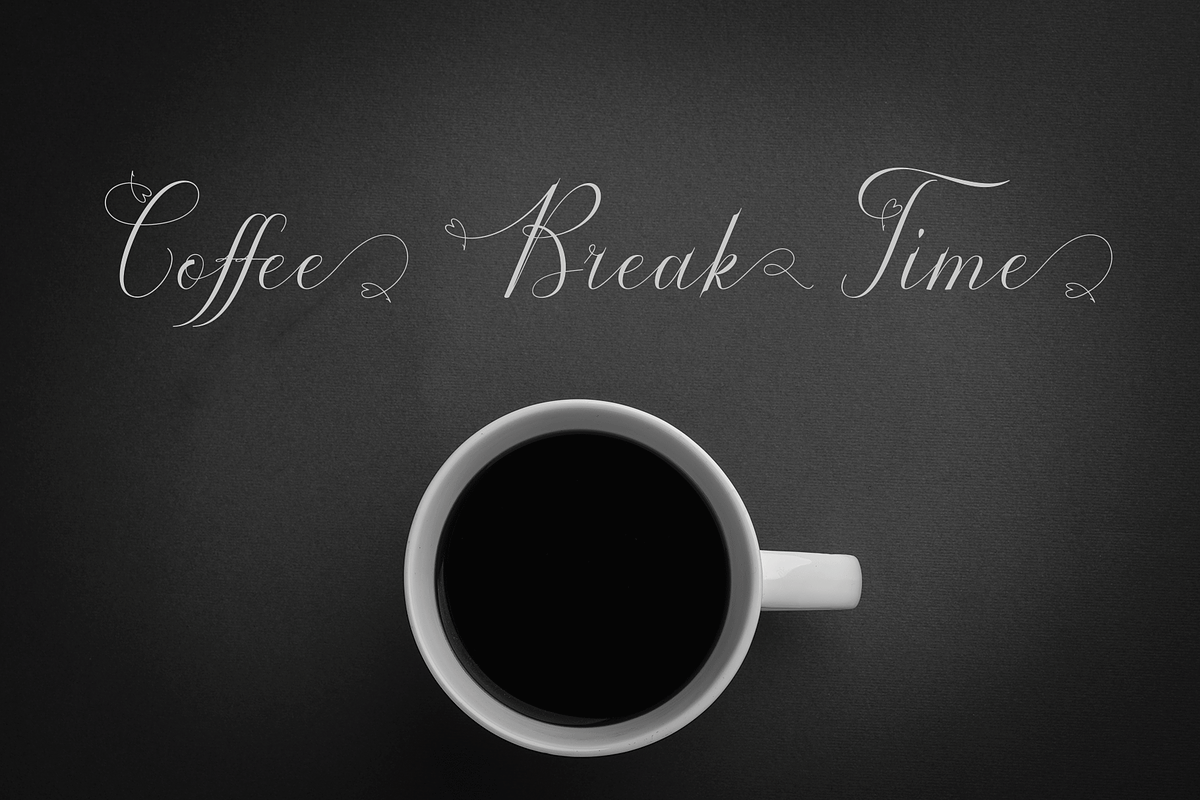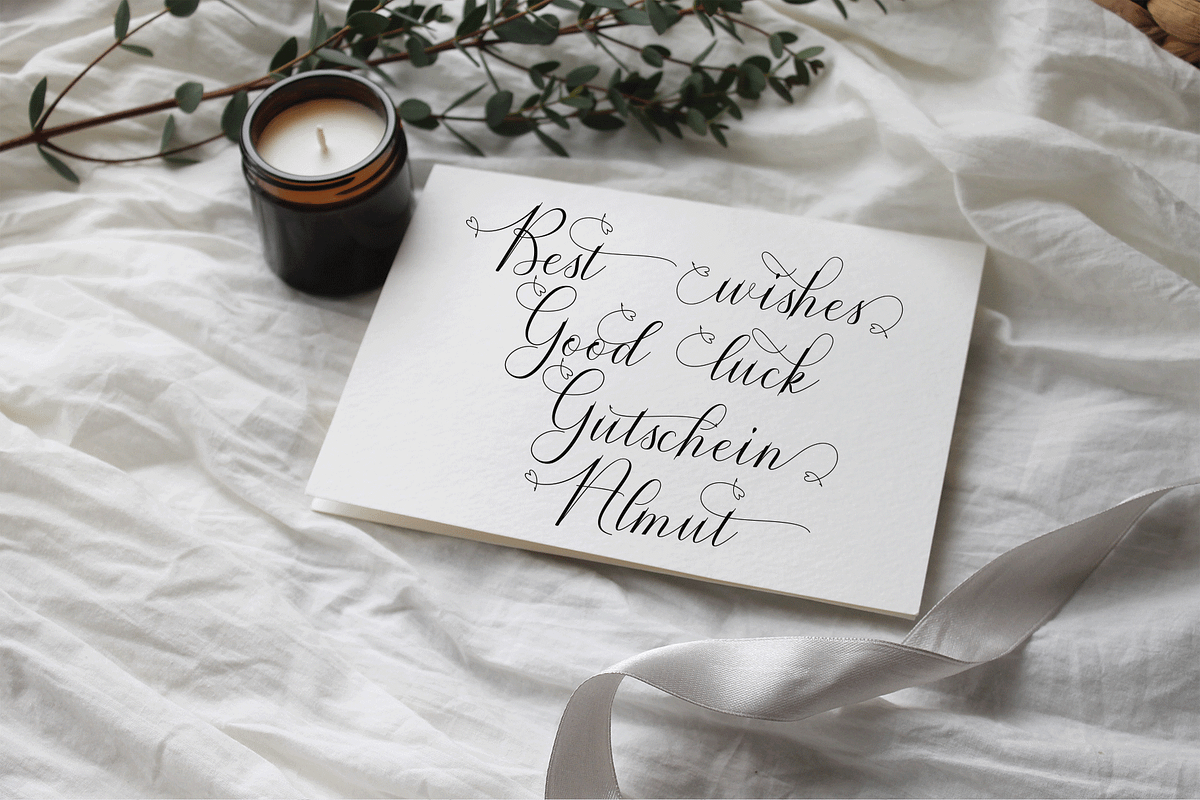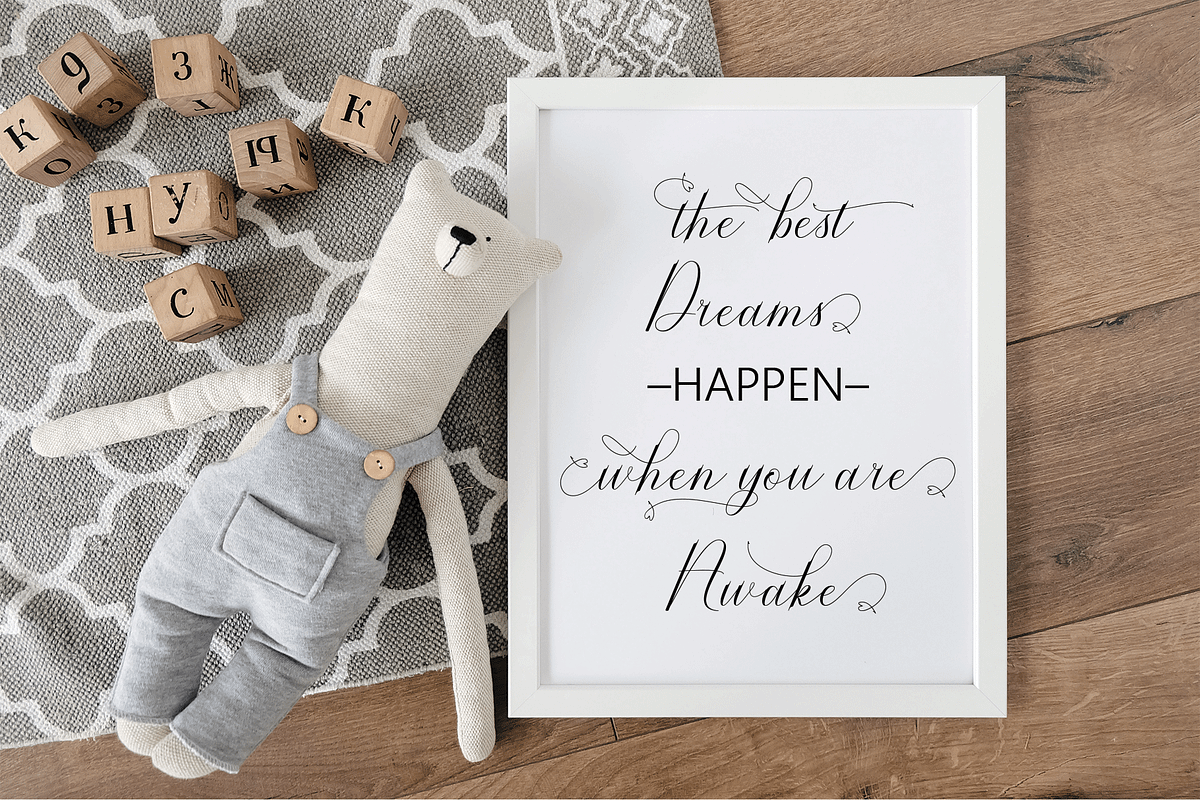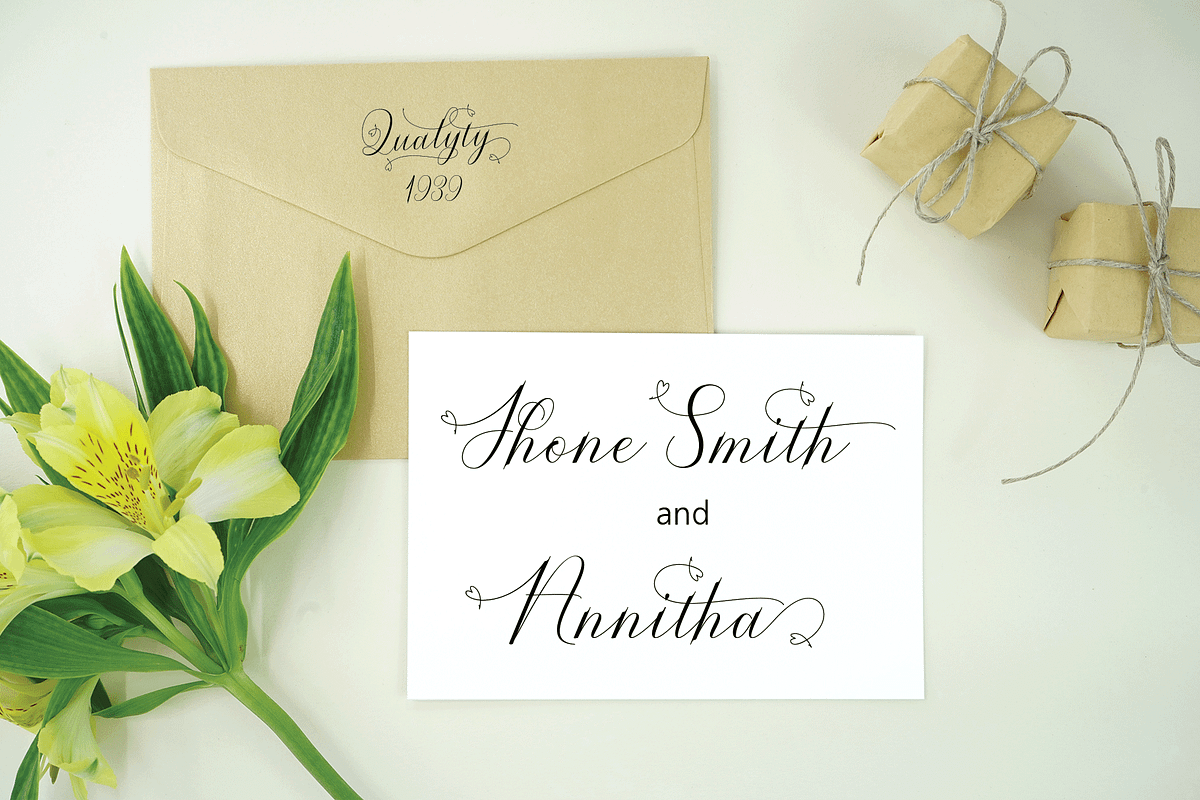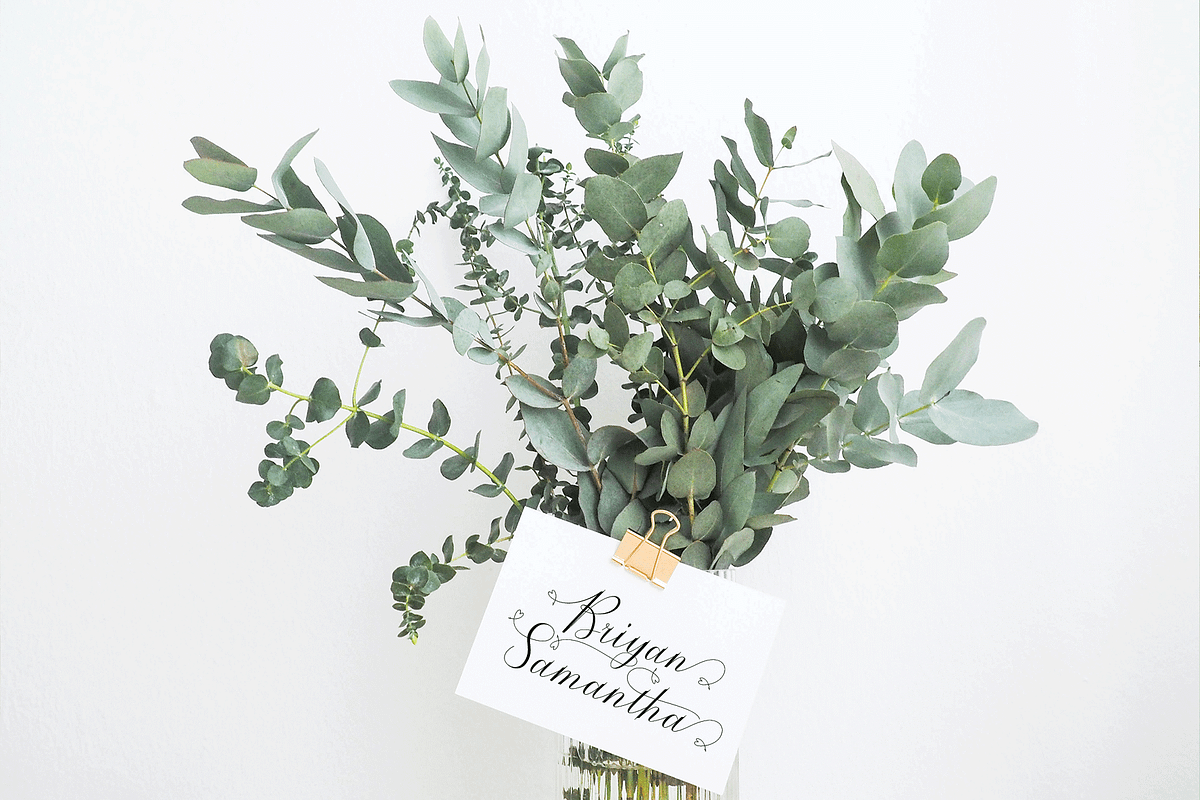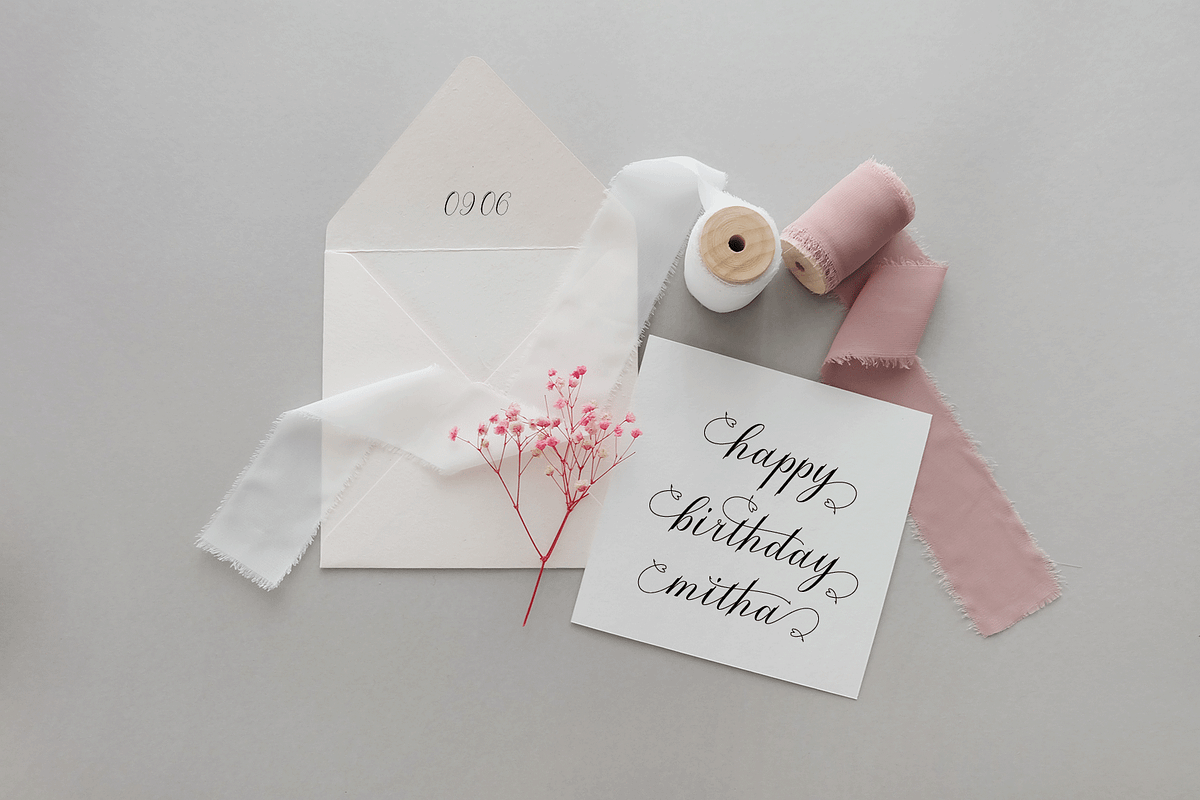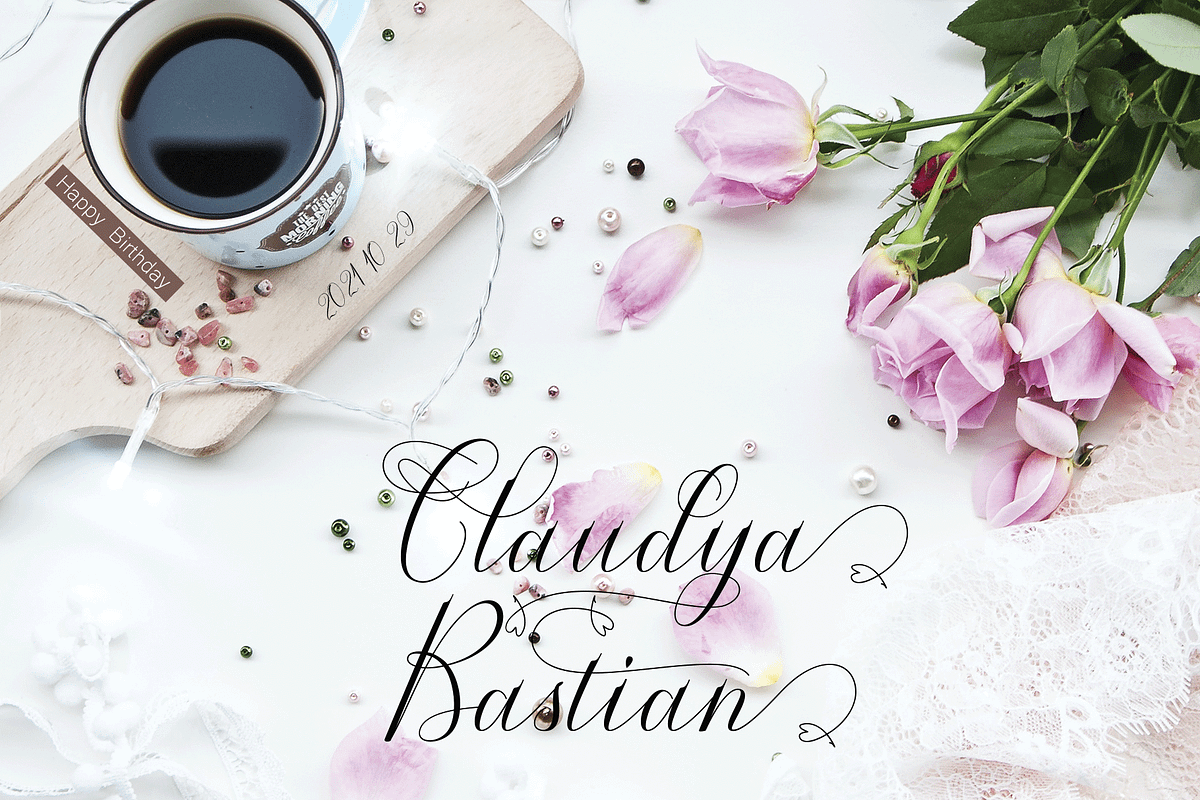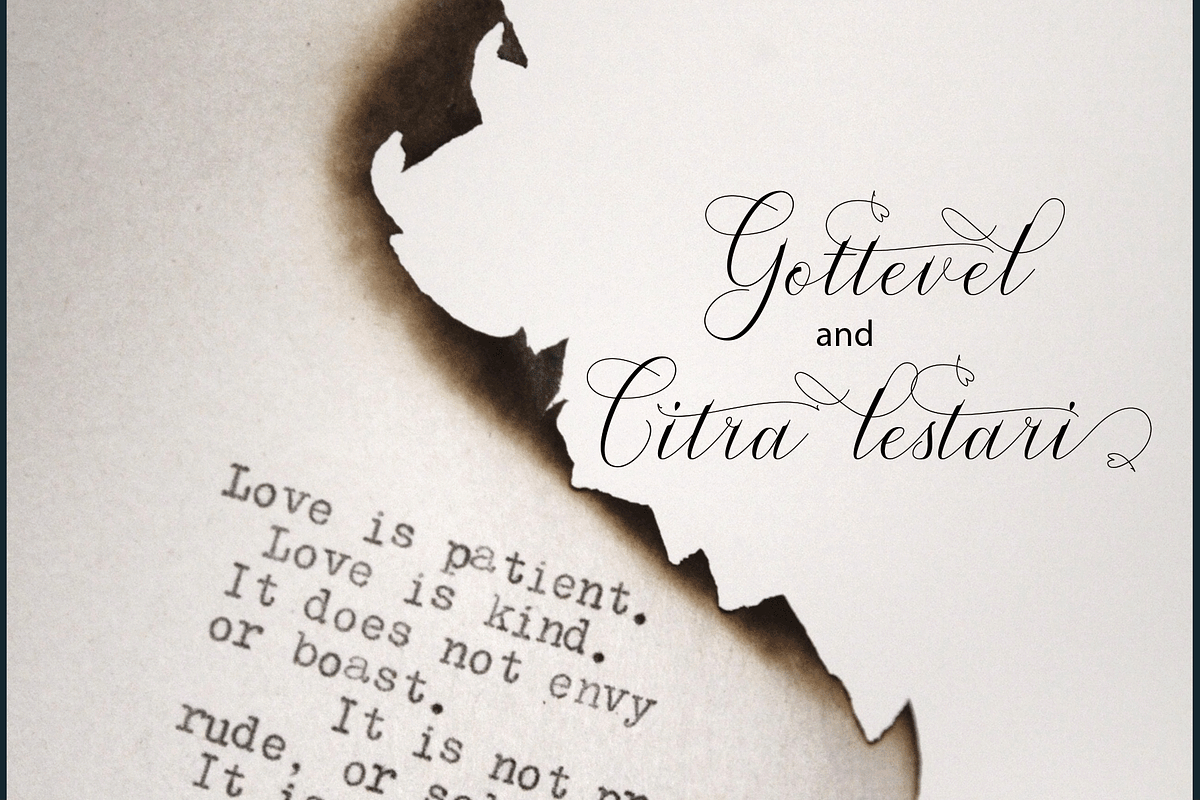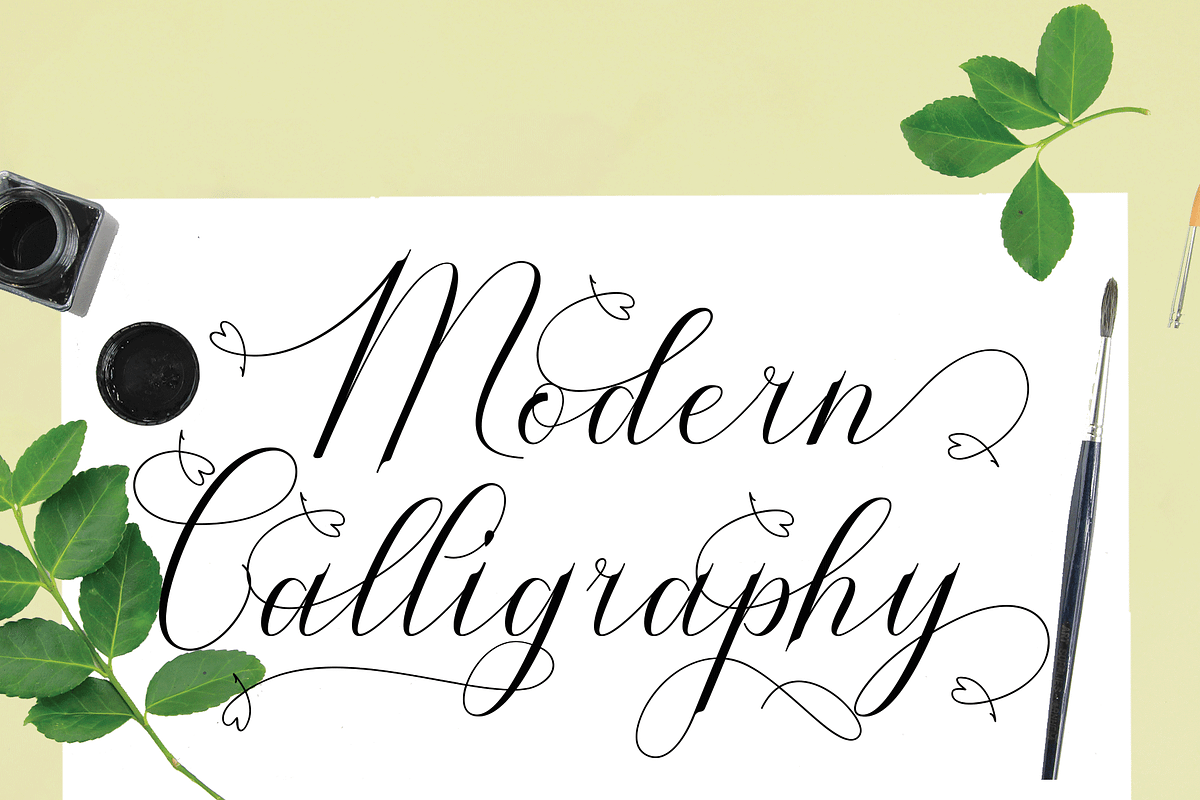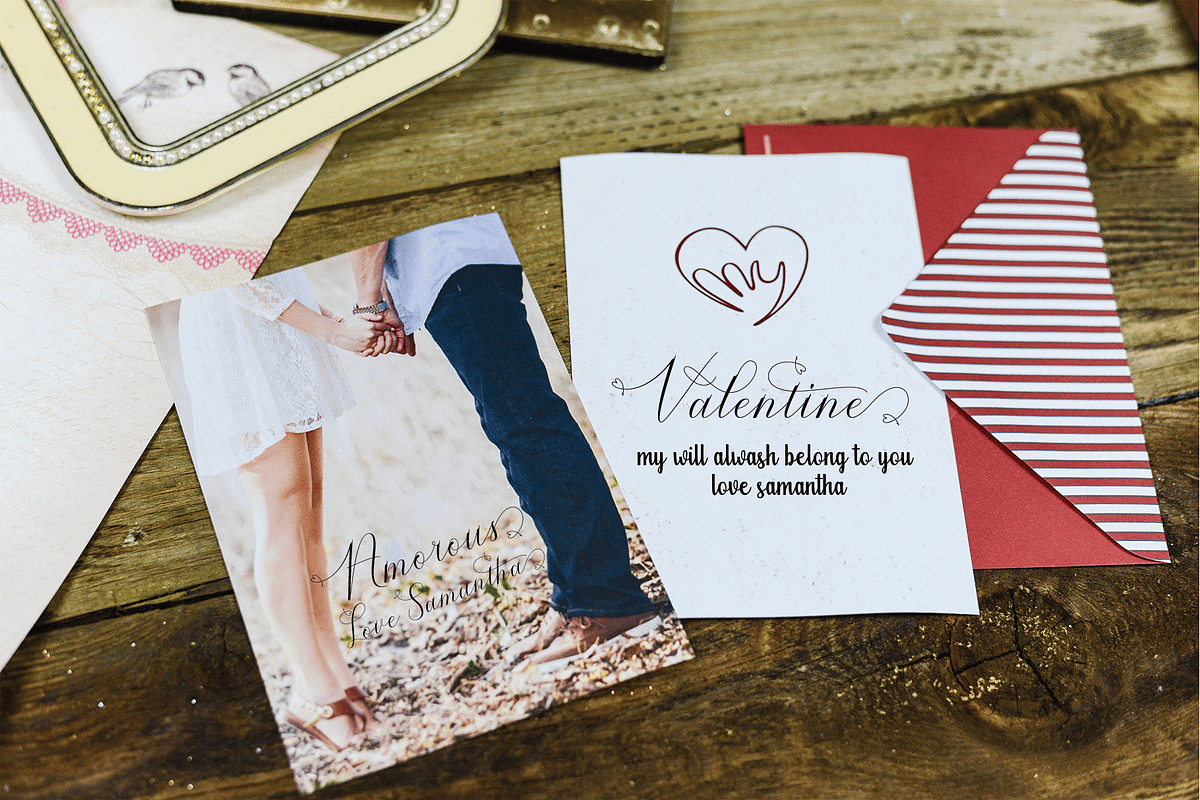
Songster
Songster Modern Calligraphy. This font was designed by handwriting, and it has a modern and unique forms of calligraphy, the writing style is very natural.
The Features of this fonts is;
- Standart ligatures
- Contextual Alternates
- Stylistic sets
- Swahs